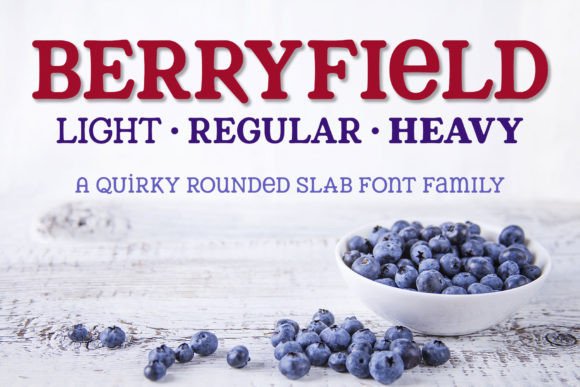
Journey into a World of Typographic Delights: Discover Berryfield Font Family
Unleash your creativity and embark on a typographic adventure with the Berryfield Font Family, a display font collection that will transform your designs into captivating masterpieces. GeekMissy, the font's creator, embarked on an artistic experiment, weaving geometric shapes into a font that exudes both classic elegance and playful charm.
Born from circles and rectangles, Berryfield's uppercase letters draw inspiration from serif classics like Cooper, Korinna, and Goudy, exuding a timeless sophistication. However, the lowercase set takes an unexpected turn, drawing cues from playful unicase fonts like Pupcat and Pharmacy, resulting in uppercase-height lowercase letters that add a touch of whimsy to your designs.
Variety Abounds: A Font Family for Every Occasion
The Berryfield Font Family is not just a single font; it's a versatile collection that caters to a wide range of design needs. With three distinct weights – Regular, Light, and Heavy – you have the freedom to choose the perfect font for your project, whether it's a magazine headline, a crafting project, or a quirky social media post.
Each font in the family boasts an impressive character set, including over 520 characters and 300 extended Latin characters, ensuring support for multiple languages. Additionally, you'll find a treasure trove of alternate letters and superscript ordinals (ST, ND, RD, and TH), all conveniently PUA-encoded for effortless access in any design program.
Berryfield: A Delightful Font for Every Occasion
Berryfield was born out of a passion for typography and a desire to create a font that sparks joy and creativity. Its smooth and effortless flow makes it ideal for both print and crafting projects, while its unique blend of classic and playful elements adds a touch of personality to any design.
Whether you're a seasoned designer or just starting your typographic journey, the Berryfield Font Family is your perfect companion. Its versatility, charm, and ease of use make it a must-have for any creative toolbox. So, dive into the world of Berryfield and let your designs flourish with newfound inspiration.